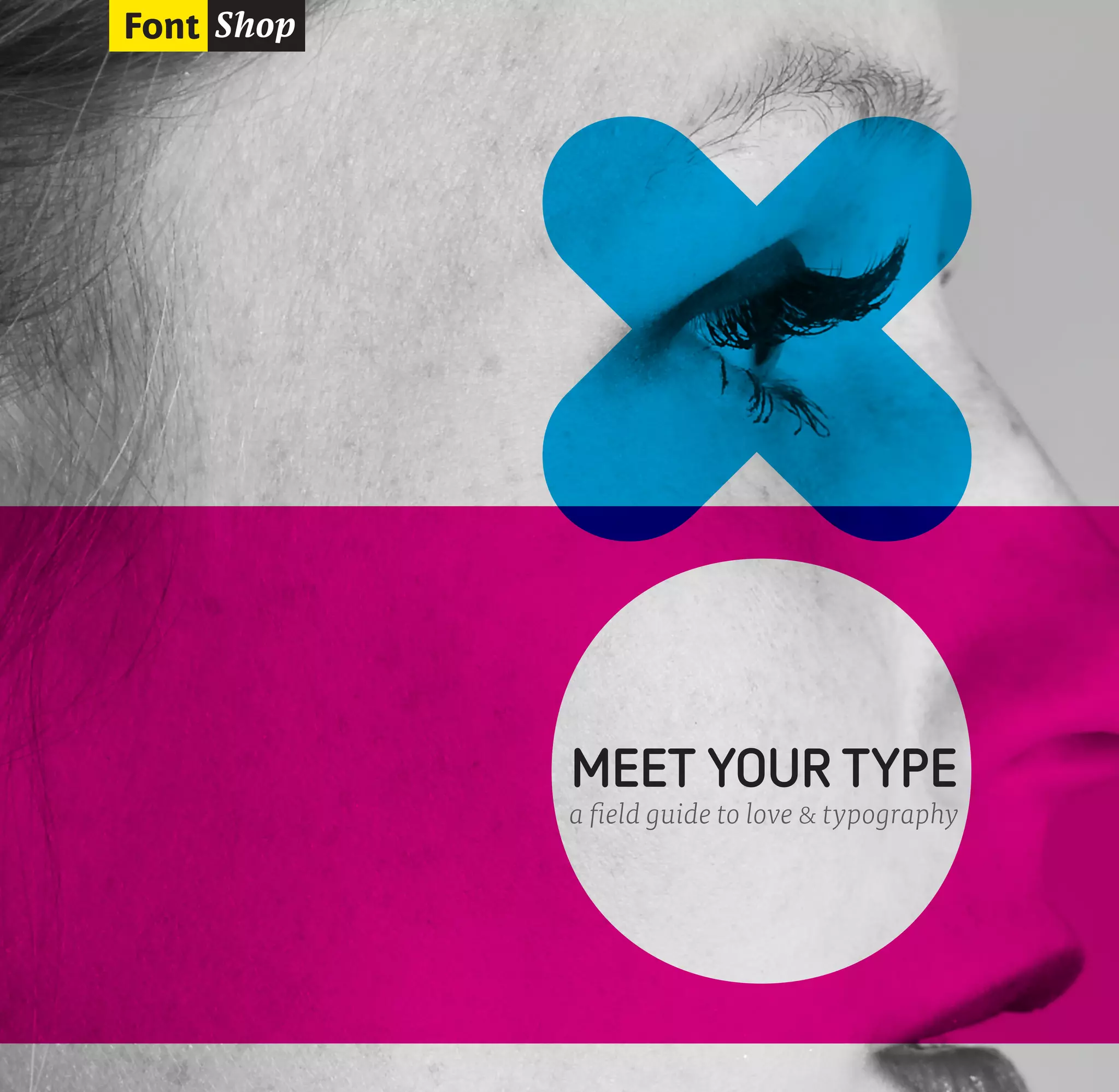
MEET YOUR TYPE
a field guide to love & typography
TIME FOR “THE TALK”
the elements of typography
COULD THIS BE THE ONE?
appropriate typeface selection
MAKING IT WORK
typographic details
TIME TO COMMIT
font licensing and creation
Why settle for casual flirtation
when looking for a long-lasting
relationship? Finding the perfect
match is easy if you know the
rules. MEET YOUR TYPE will help
you overcome common obstacles,
and keep your heart thumping for
your one true love:
Ø5            THE BIRDS & THE BEES
typeface vs. font
typography.
TIME FOR ”THE TALK”
the elements of type
007                                                   THE BIRDS & THE BEES
typeface vs. font
You may notice that you’re changing. You’re noticing
different letterforms. You may feel different around
them. Don’t be embarrassed; these feelings are natural.
A few basics can help you through the awkward years.
TYPEFACE   A typeface is a single set of characters that share stylistic unity.
A typeface usually comprises an alphabet of letters, numbers,
punctuation and diacritical marks.
FONT    Old school typographers defined a font as a complete character
set of a particular typeface in one size. When type made the leap
to the digital realm, a font became an electronic file that rendered
the typeface in all sizes.
A typeface is what you see–
a font is what you use to make
it happen.
YOU JUST WANT ME FOR MY BODY
type anatomy
Double chin, big feet, or bowed legs. Little details will
tell you a lot about your type. Go ahead and check them
out – it’s not shallow. It’s your job.
CAP HEIGHT                          BASELINE                              COUNTER
The distance between the baseline   The imaginary, yet crucial line       The enclosed negative
and the top of a capital letter.    where all obedient letterforms sit.   space within a letter.
X HEIGHT
More than any other part of the body, the x-height can
dramatically affect type readability. Avoid extremely small or             The height of a lower
very large x-heights if that is important to you.                         case x or the height of
lower case letters.
ASCENDER                                    SET WIDTH
Quite ambitious, this part                  Width of a character in relation to
of a lower case letter rises                the height. Being wider than you
above the x height.                         are tall isn’t always a bad thing.
DESCENDER                                           TERMINAL
The male anatomy of a                                             Even though it sounds
lower case letter that hangs                                          life-threatening, it is
below the baseline.                                           just the endpoint of
the letterform.
DOES (POINT) SIZE MATTER?                                                           010
type measurement
You’ve probably heard the rumor: the bigger your type,
the better. While that is sometimes true, on other
occasions smaller is better. No matter what size you’re
working with, if used properly, it can be effective.
THE POINT SYSTEM      The point system is used by women everywhere
to reward their men for good behavior.
A similarly archaic system, using points and
picas, measures typographic dimensions.
POINT SIZE   Worrying too much about size can lead to an
When concerned about            inferiority complex. Point size has very little to do
readability, pay as             with the actual size of your type anyway. Some
much attention to the           typefaces can appear much larger than others
x-height as the point           at the same point size. So measure however
size. X-heights that are
you want – points, picas, inches, centimeters,
too small or too large
can dramatically affect         or (gulp) millimeters. Just remember to always
readability.                    print a test page before committing to a size.
Oh,
THE LENGTHS I GO
to plea∞e you.
ARE WE MEANT FOR EACH OTHER?
type history & classification
SERIF                  SANS SERIF         SLAB SERIF
Everyone has a past.
While some things
can be overlooked,
type history is not                  GARAMOND            FF SCALA SANS          STYMIE
MEET YOUR TYPE I’mobviously a typomaniac. Other people like looking at girls’ bottoms. I get my kicks out of looking at type. ERIK SPIEKERMANN